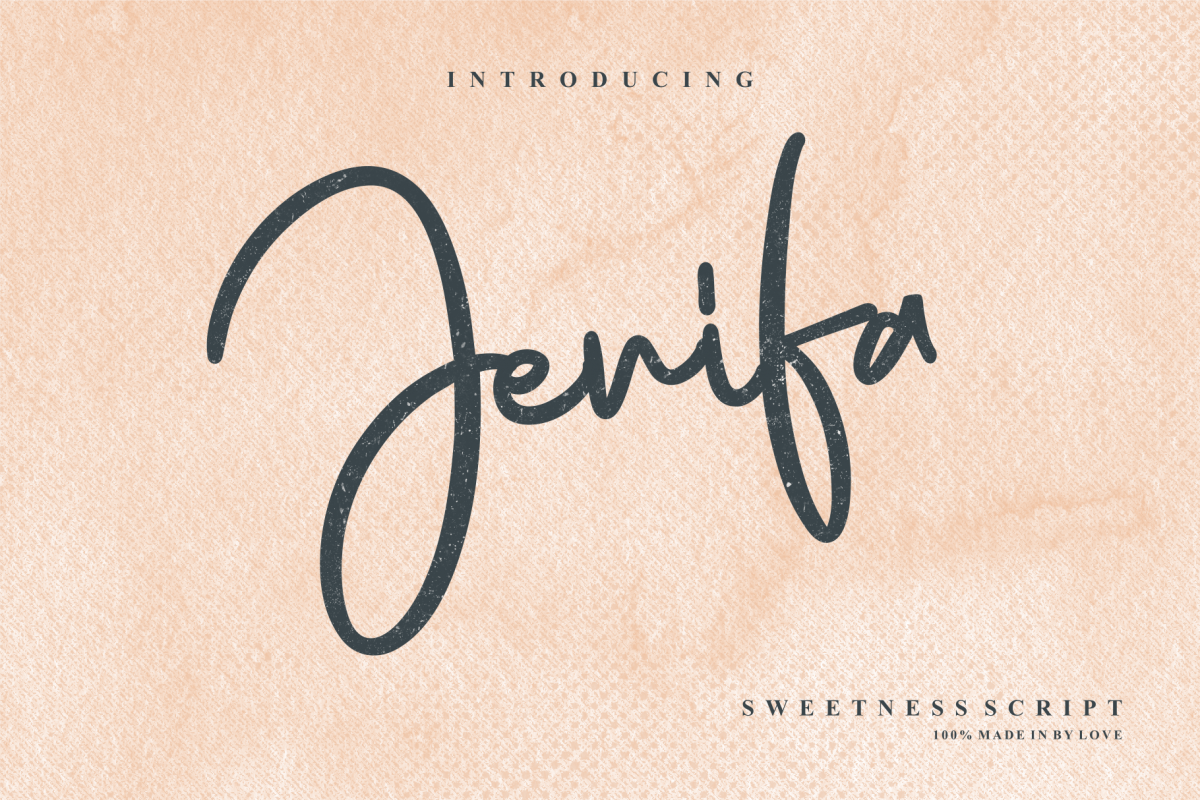
Jenifa Script Font
Jenifa Script Font is modern feminine font, every single letters have been carefully crafted to make your text looks beautiful. With modern script style this font will perfect for many different project ex: logo, photography, watermark, quotes, snapgram, blog header, poster, wedding, branding, logo, fashion, apparel, letter, invitation, stationery, etc.